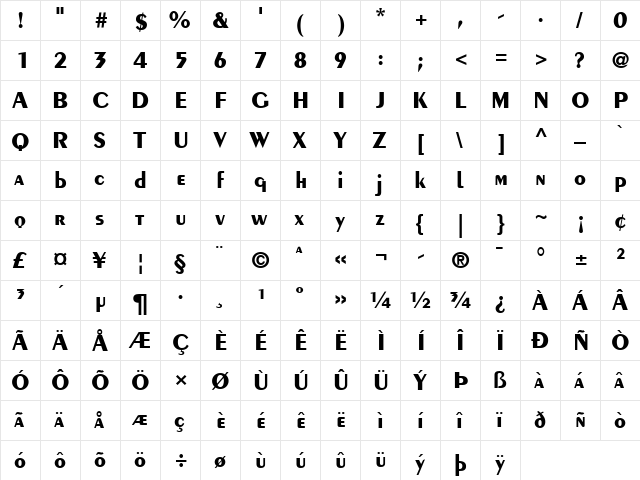
Peignot LT Demi Bold
Design Context for Peignot LT Demi Typeface
Peignot LT Demi offers clean, dependable letterforms without strong stylistic allegiance, making it a practical choice for designers who need flexibility. The heavy weight commands attention and anchors typographic hierarchies.